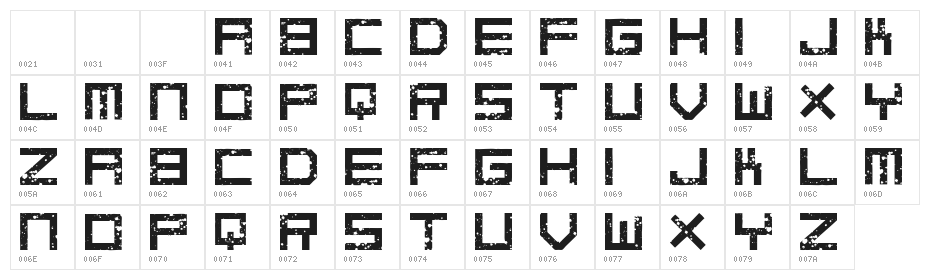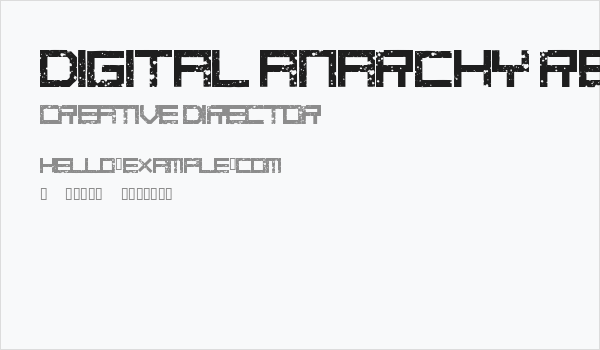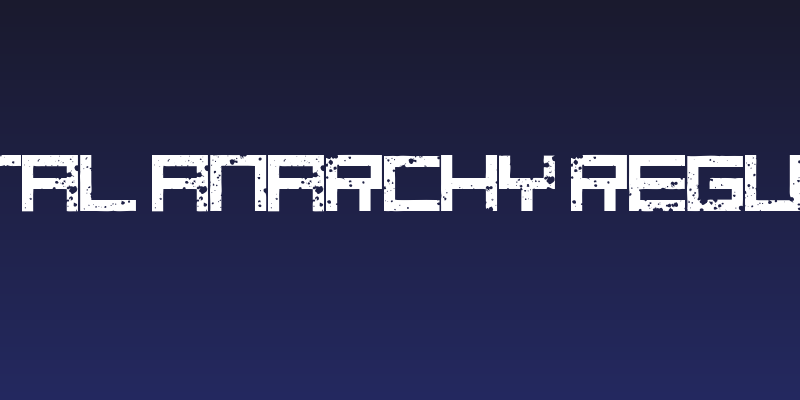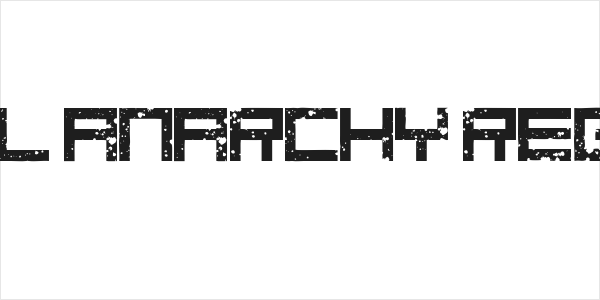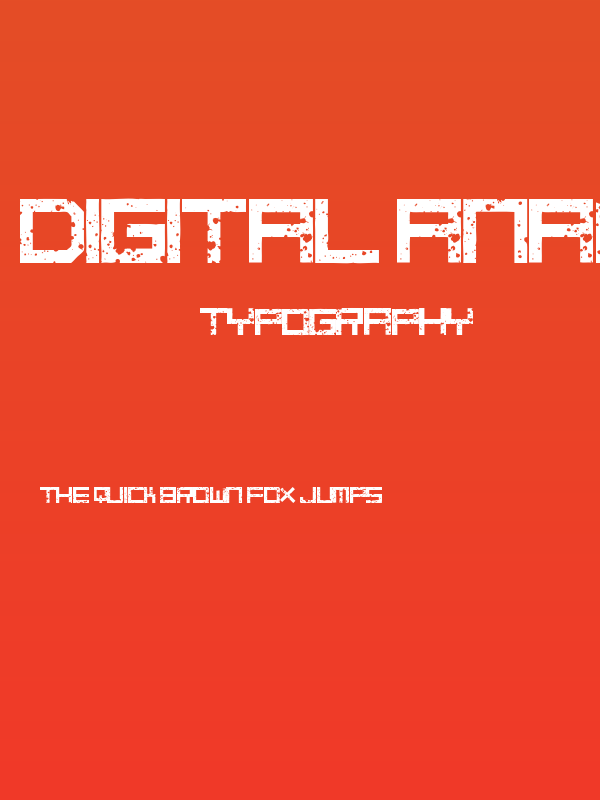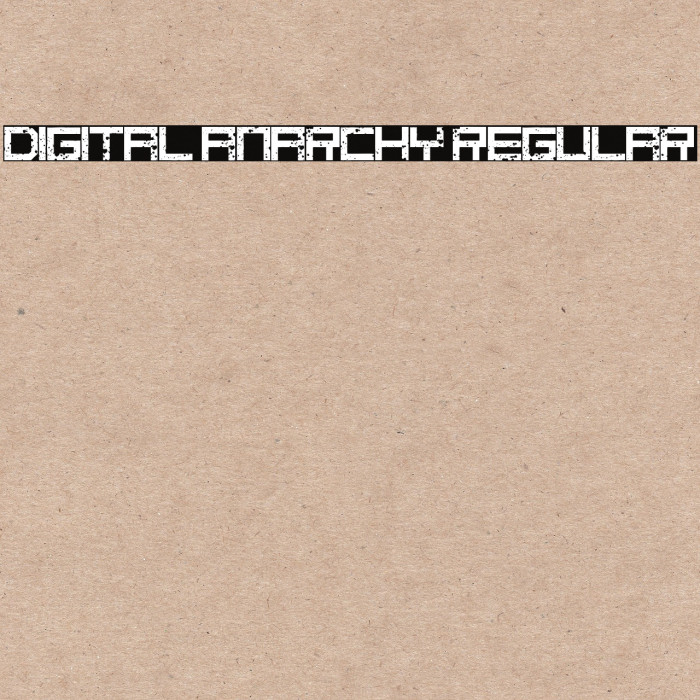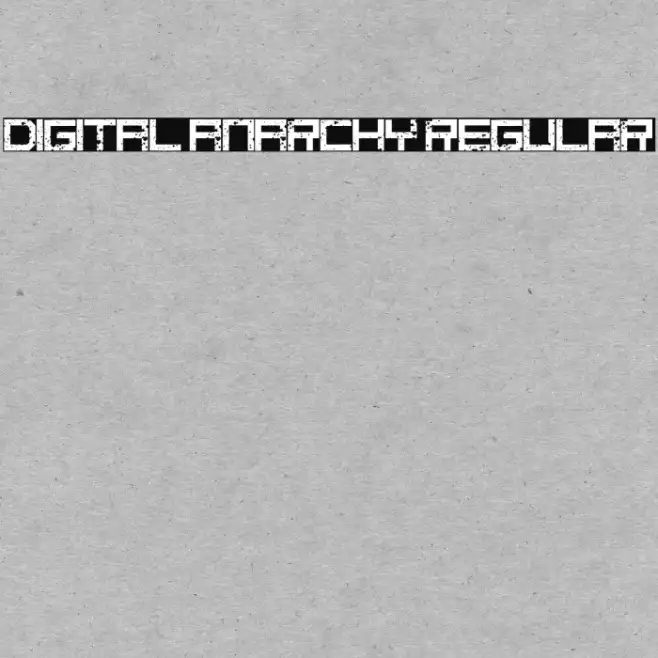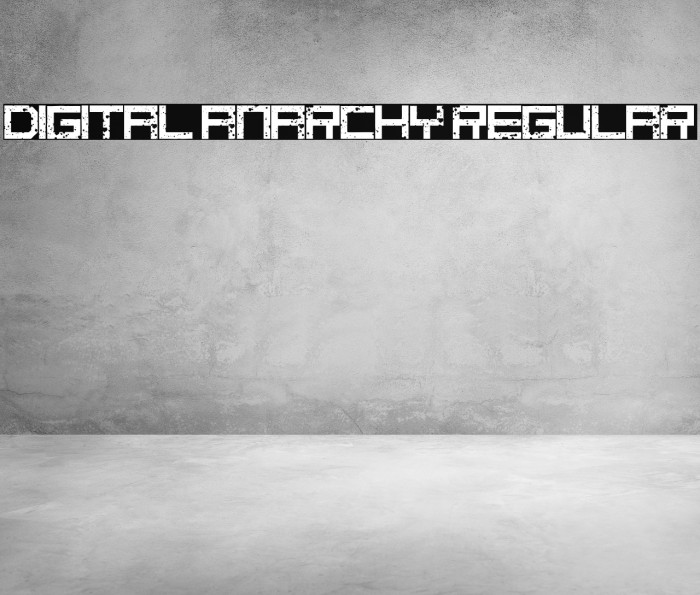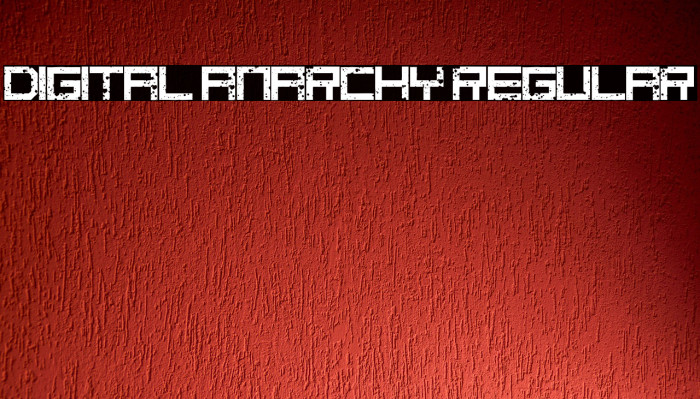
digital anarchy Regular Font
digital anarchy Regular Description
This font features a bold, distressed style with a digital, futuristic aesthetic. The characters are blocky and geometric, with a textured, worn appearance that gives them a gritty, industrial feel. The uppercase and lowercase letters maintain a consistent style, with sharp angles and straight lines. The numbers and special characters follow the same design principles, ensuring uniformity across the font. This unique style is perfect for projects that require a modern yet edgy look, such as tech-themed designs or urban art projects.
| Overall Style | Modern, Edgy |
| Use Case | Logos, Posters, Headlines |
| Proposed Projects | Ideal for tech-themed designs, urban art projects, and edgy branding. |